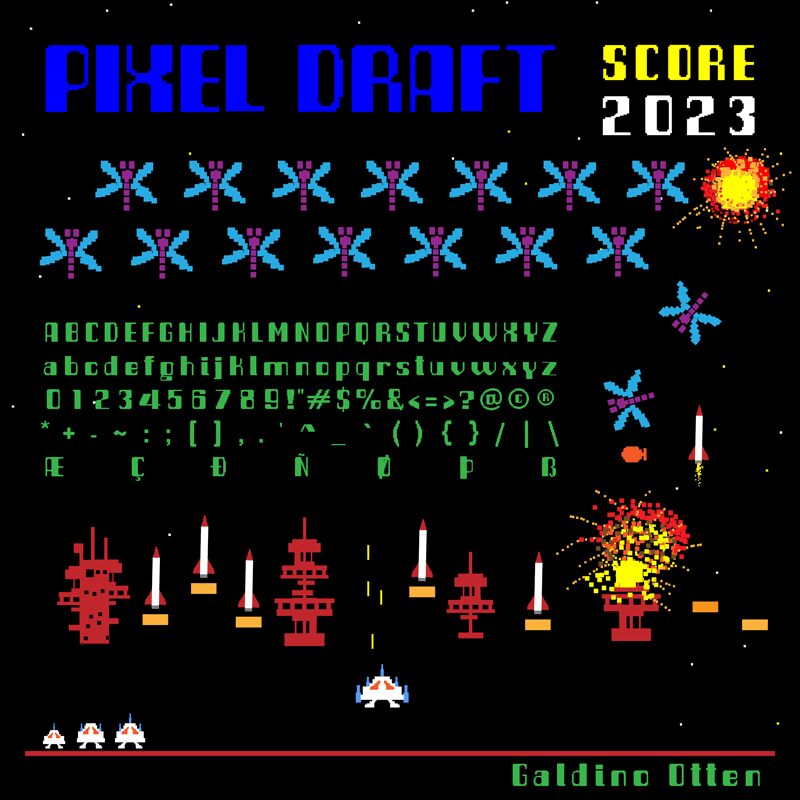
Pixel Draft
Pixel Draft, designed by Galdino Otten, is an extra-bold display font with a semi-condensed width. Its digital and game-inspired style makes it a perfect choice for projects that need to evoke a futuristic or retro feel.
Whether you're designing video game titles, creating digital artwork, or developing websites for tech startups, Pixel Draft will add a touch of edginess and excitement to your designs.
With its bold and condensed characters, this font is sure to make a lasting impression on any screen.
Whether you're designing video game titles, creating digital artwork, or developing websites for tech startups, Pixel Draft will add a touch of edginess and excitement to your designs.
With its bold and condensed characters, this font is sure to make a lasting impression on any screen.